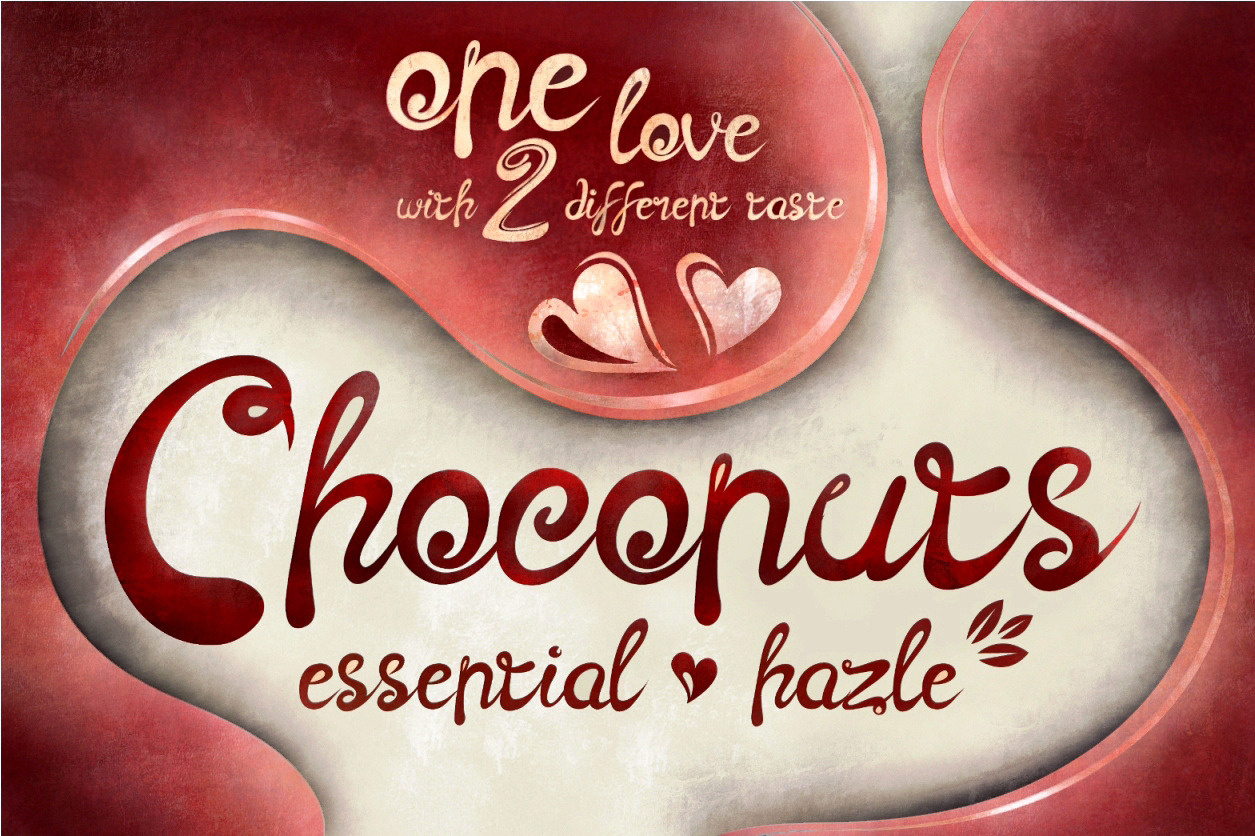
Choconuts Typeface
Introducing “CHOCONUTS” - Two Flavors: Hazel & Essential
It’s never too late to express your love. Every day can be a sweet moment.
Meet CHOCONUTS Essential, a simple and romantic script typeface designed with love in mind. Perfect for display typography, branding, and creating warm, heartfelt designs that feel soft, lovely, and inviting.
And for a more playful and eye-catching style, there’s CHOCONUTS Hazel — a modern elegant calligraphy font that brings a sweet, stylish, and expressive feel to your designs.
Both fonts come together in one complete pack, giving you more creative flexibility for any project.